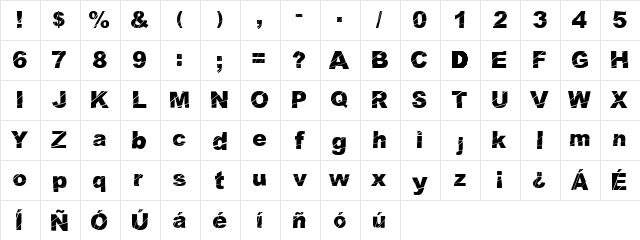
Cosmical disfase Cosmical disfase
| Foundry | Jesus Sandoval Tapia |
| Designer | Jesus Sandoval Tapia |
Design Context for Cosmical disfase Typeface
Cosmical disfase is a composed and adaptable typeface that performs quietly and consistently across a wide range of design contexts.